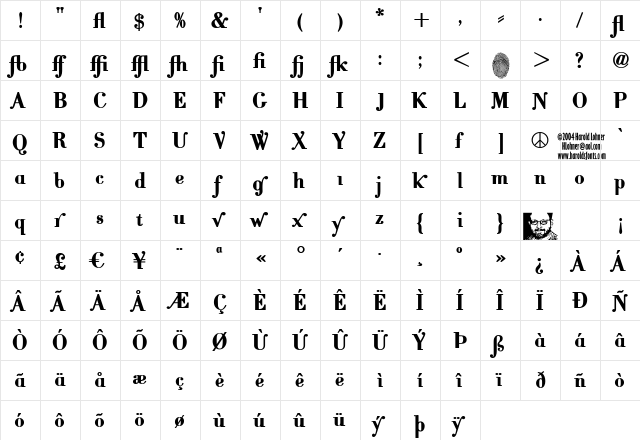
CantabileBoldAlternate Regular
Design Context for CantabileBoldAlternate Typeface
CantabileBoldAlternate is a composed and adaptable typeface that performs quietly and consistently across a wide range of design contexts. Its bold stroke weight gives it real presence on the page.
Pro Tip: Use CantabileBoldAlternate in both headline and body roles to test its range before committing to a single application.